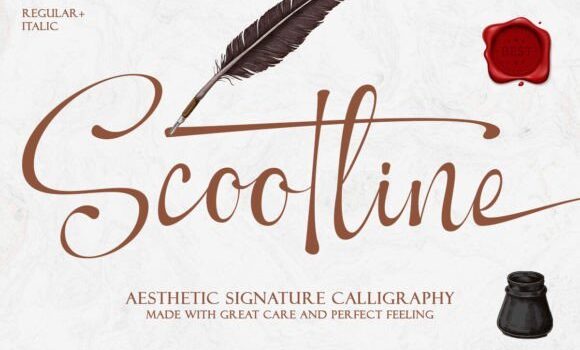
scootline
Scootline Font – Free Download Introduction to Scootline Font Scootline is a stylish modern calligraphy font with casual chic flair. 📸 Preview Gallery 6 images 📌 Product Name Scootline Font 👤 Author Romie Creative 📂 Category Explore ⬇️ Download Scootline